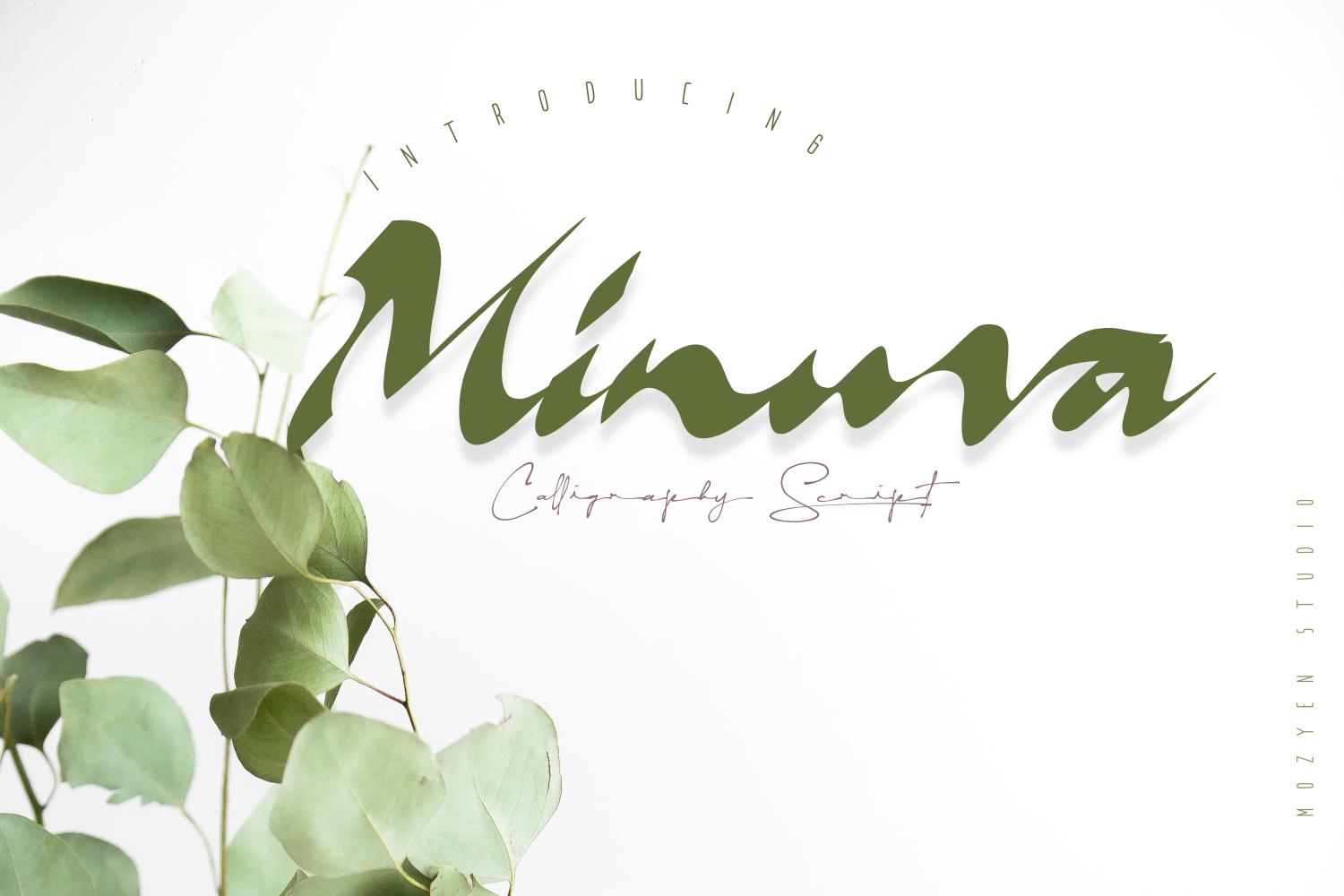
Minuva Font Description
Minuva is a beautiful handwritten font with a unique style. Its flexibility and neat style will brighten up each of your designs. Have fun with this cool font and explore its endless variations. This font is PUA encoded which means you can access all of the glyphs and swashes with ease!